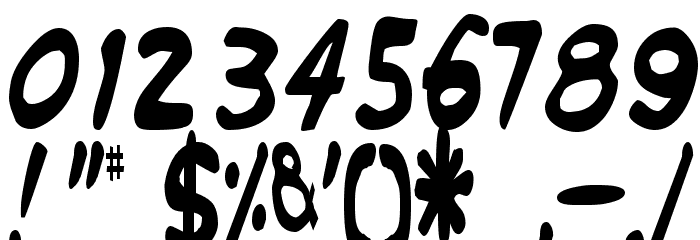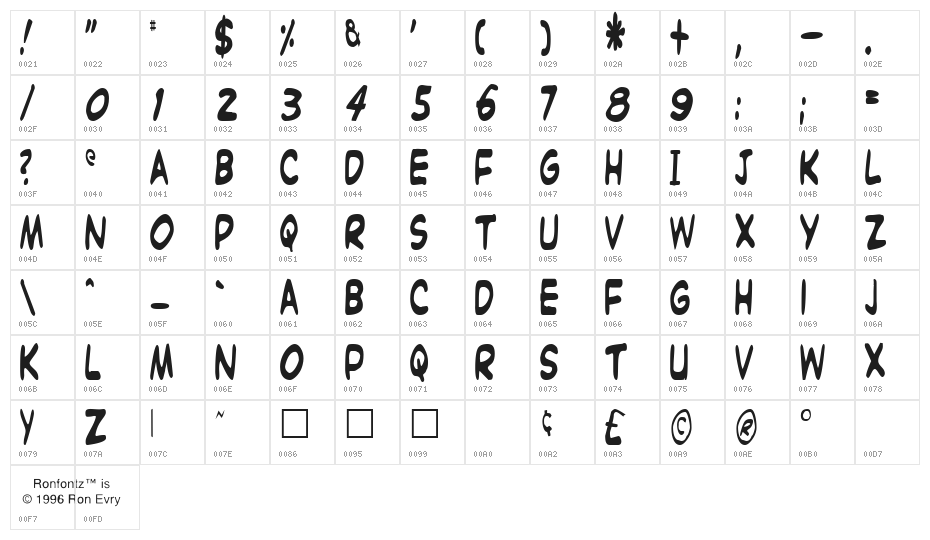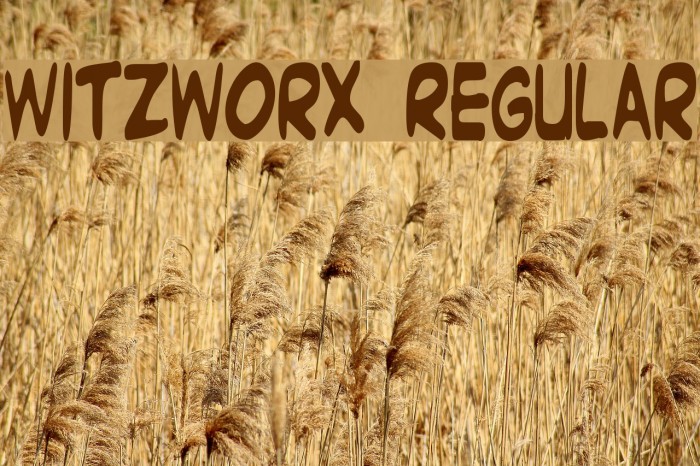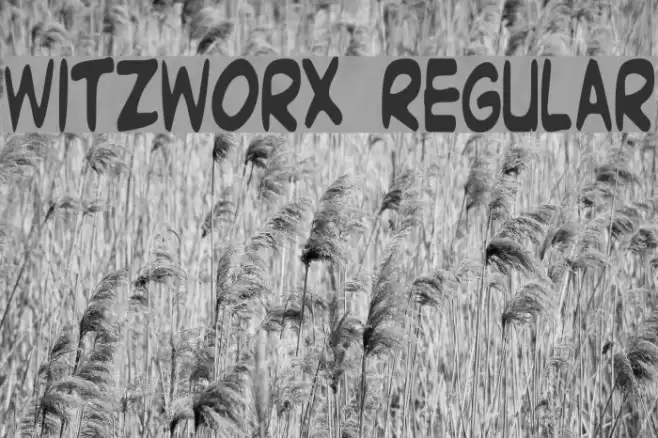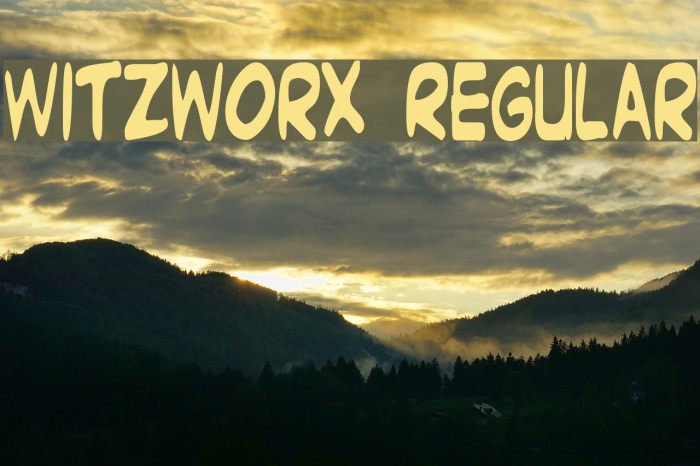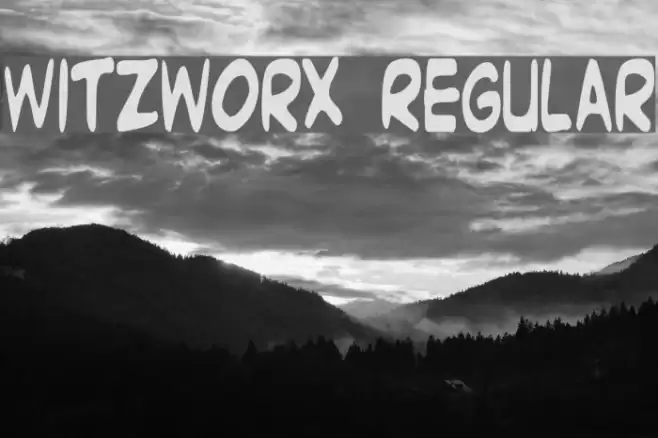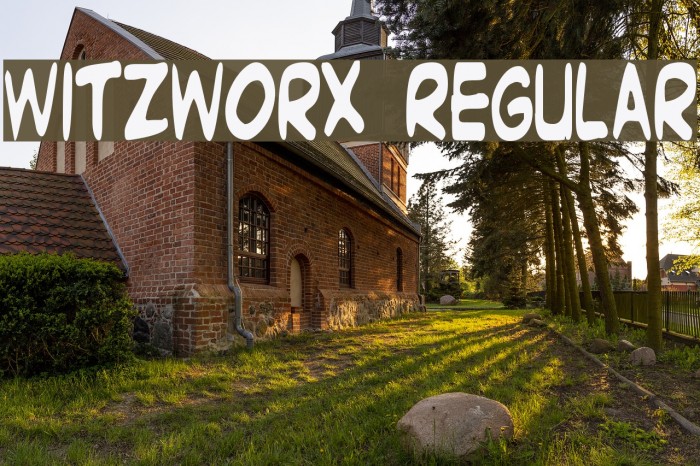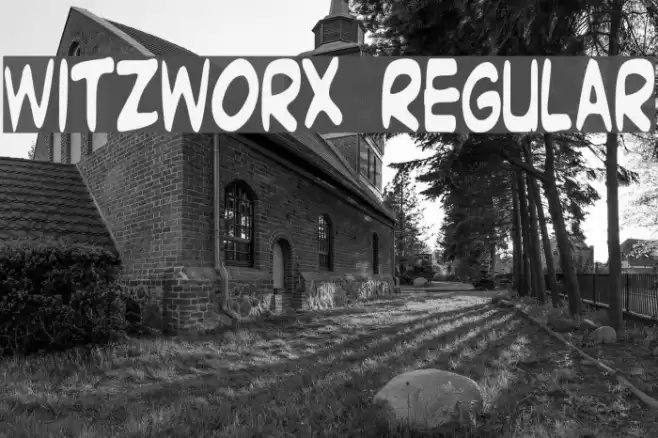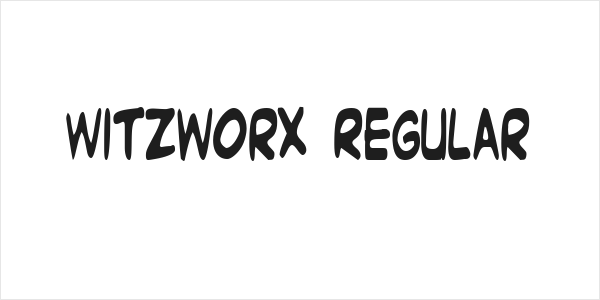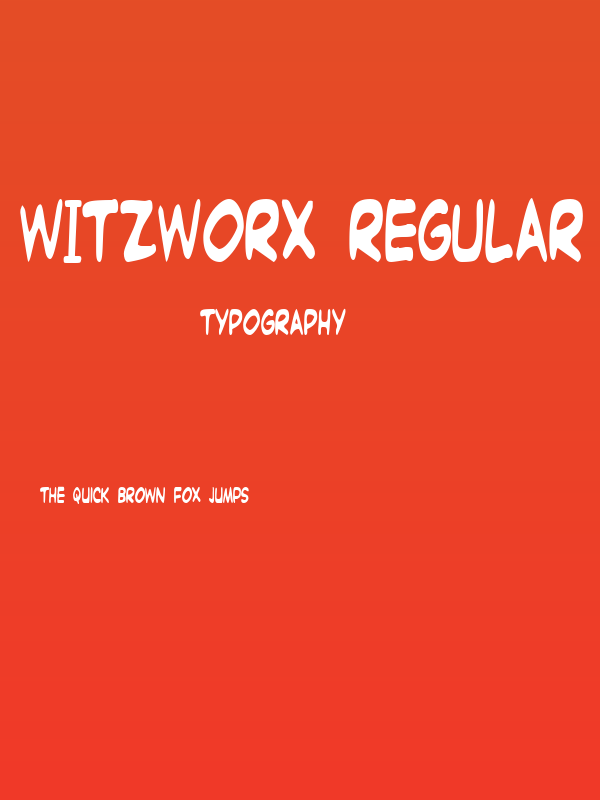
Witzworx Regular Font
Witzworx Regular Description
This font features a playful and bold design with rounded edges and a hand-drawn aesthetic. The characters are slightly irregular, giving it a whimsical and informal appearance. The uppercase and lowercase letters maintain a consistent style, with a noticeable thickness that adds to its boldness. The numbers and special characters follow the same playful design, making it suitable for creative and fun projects. The overall look is casual and approachable, ideal for designs that aim to convey a sense of fun and creativity.